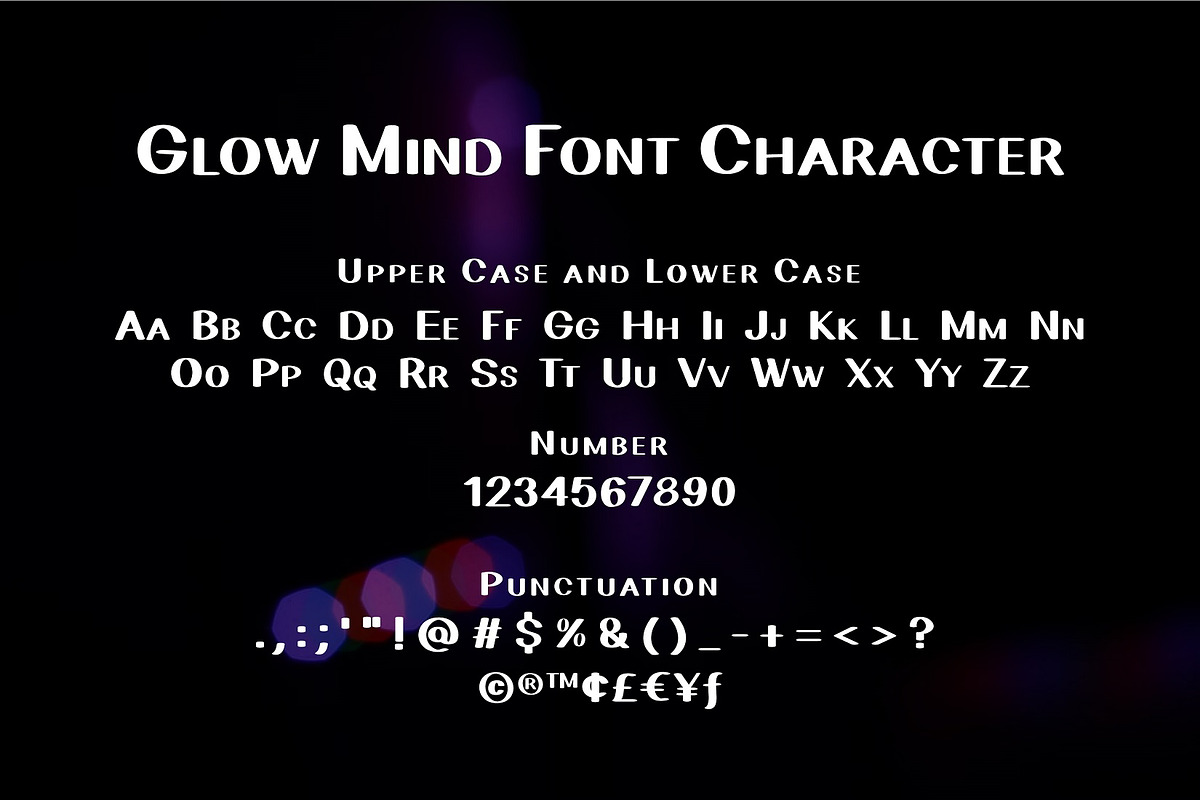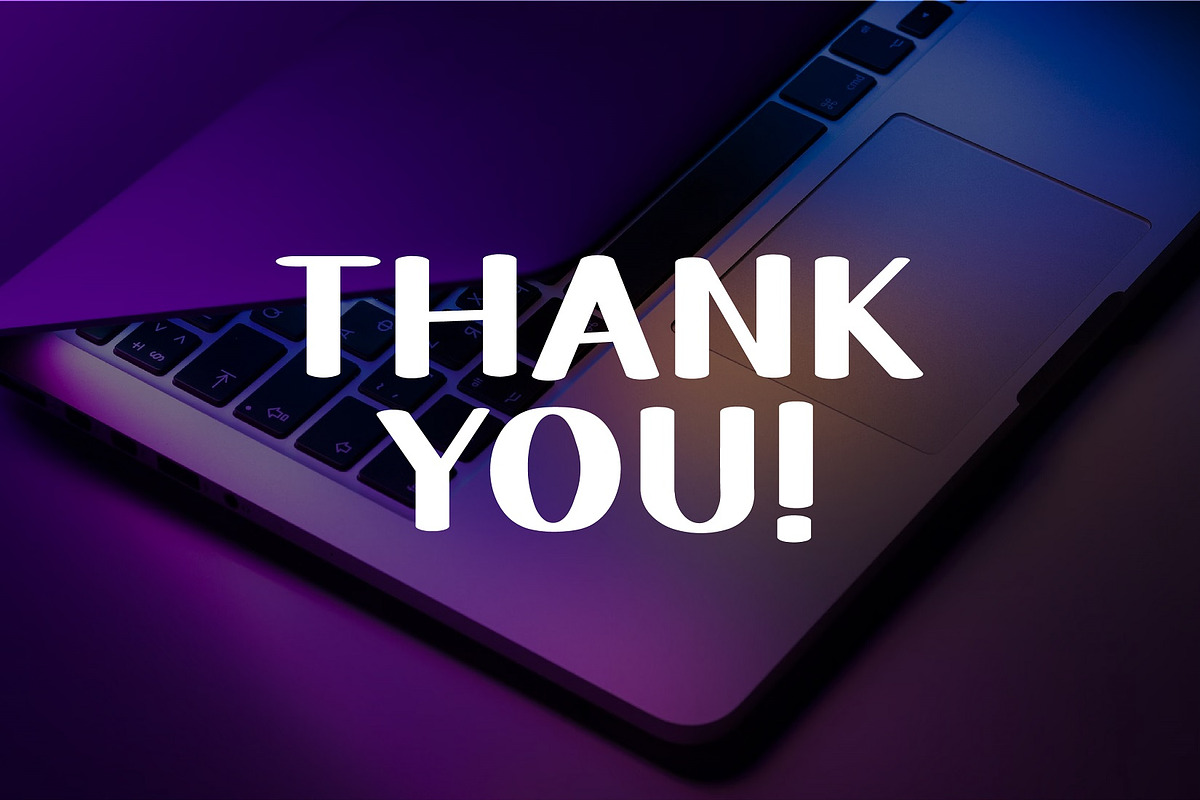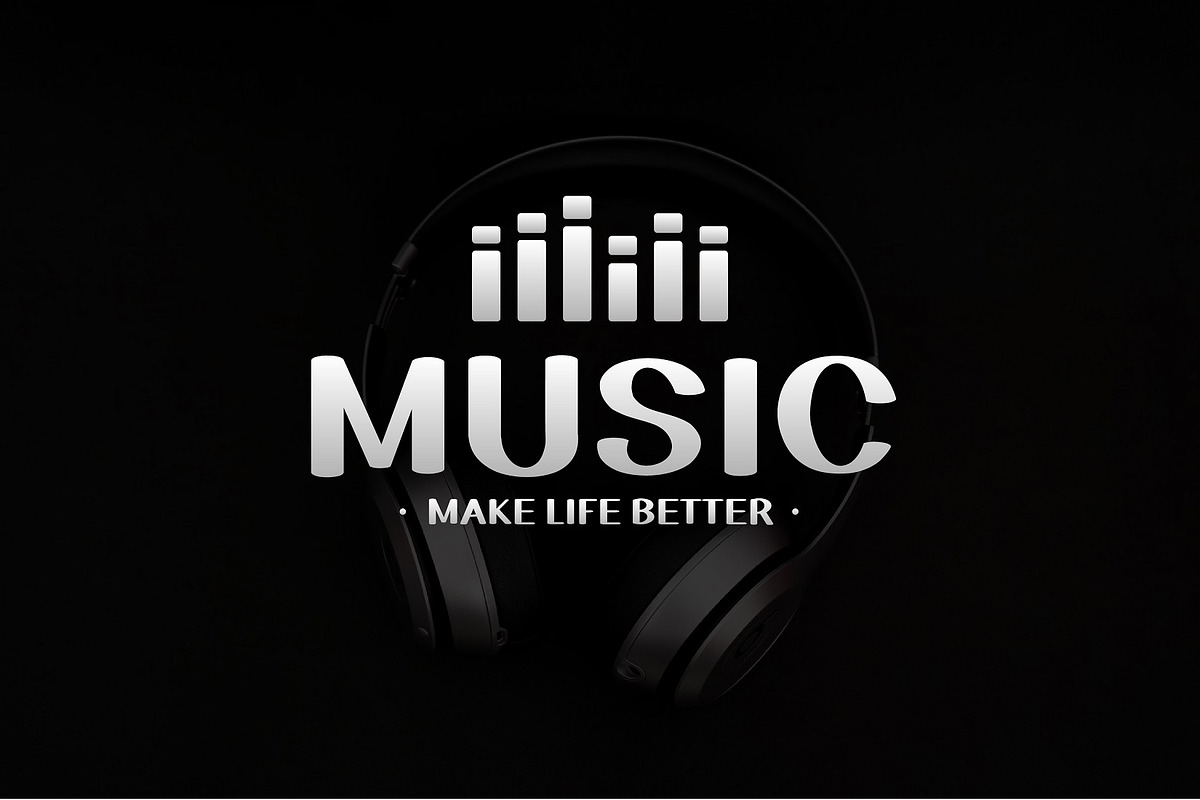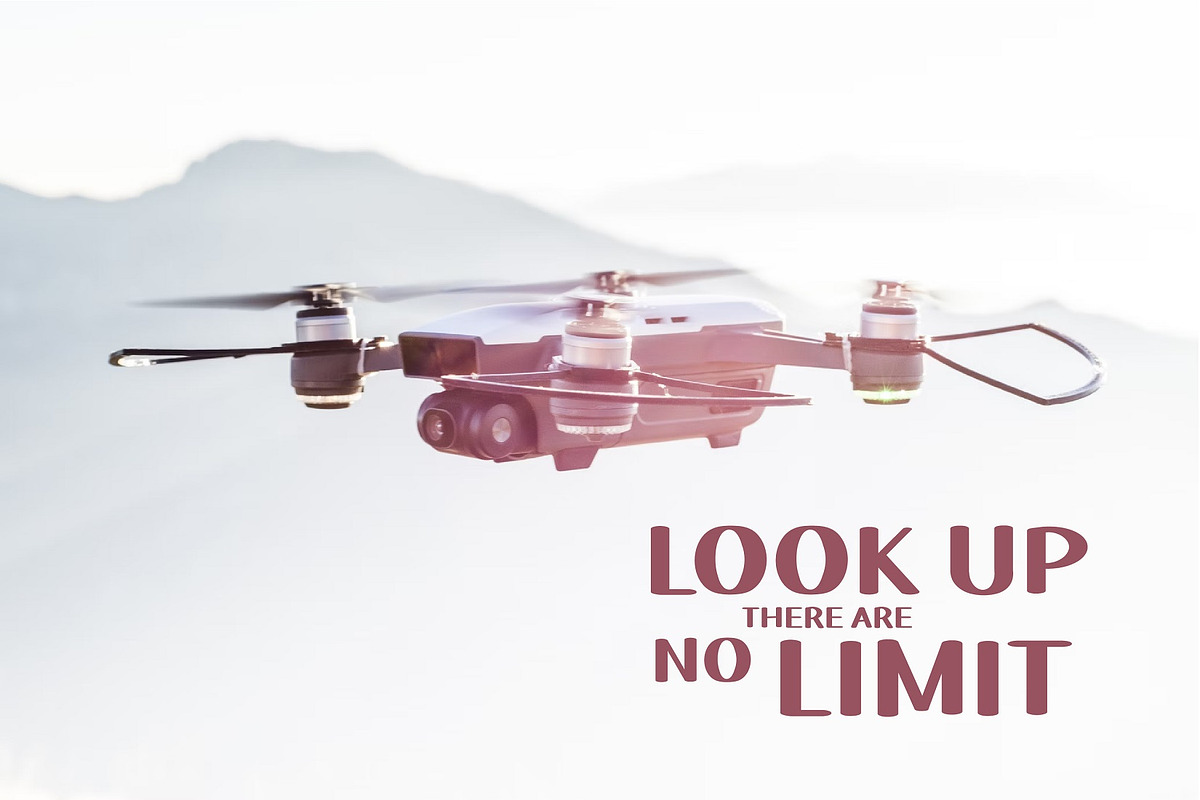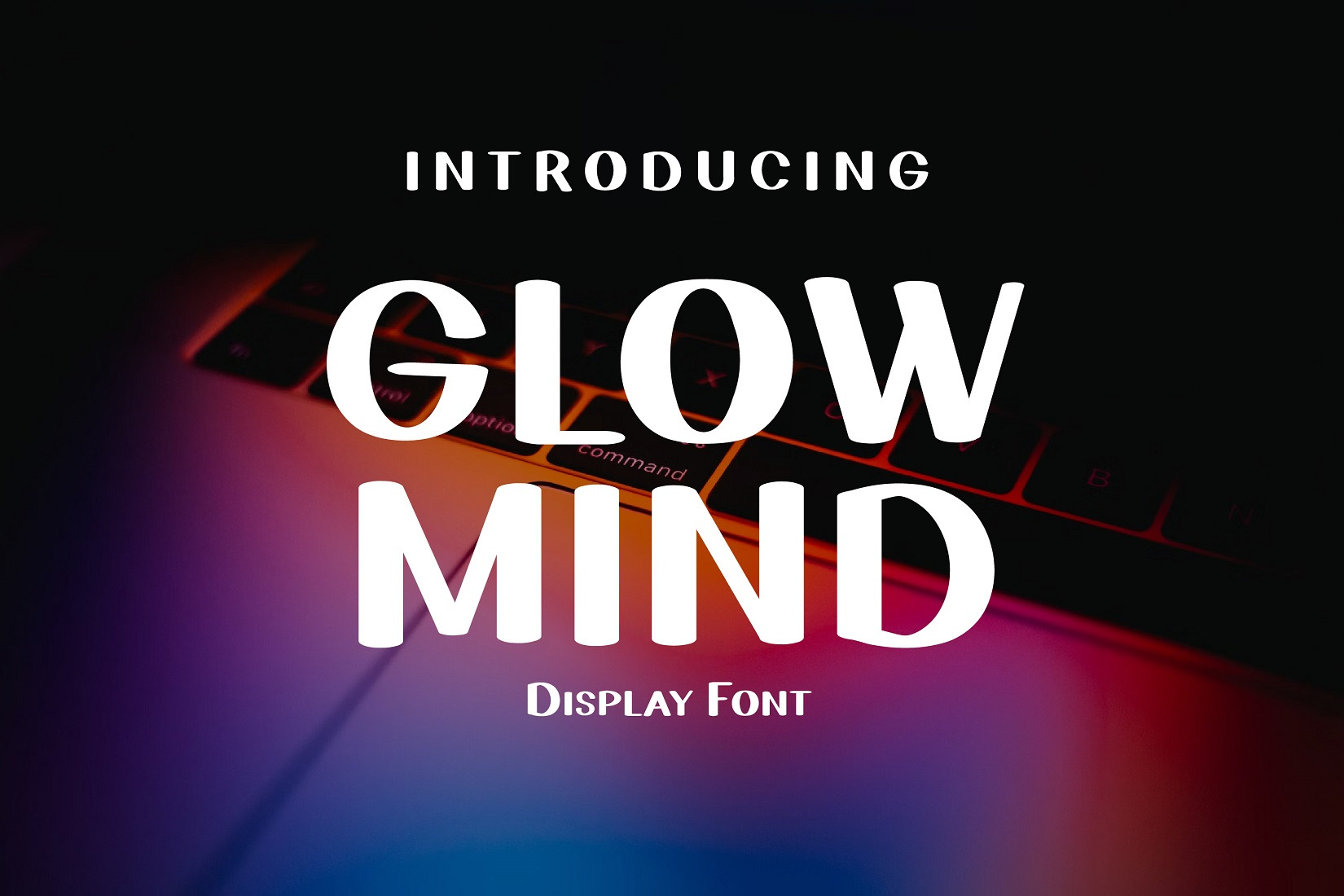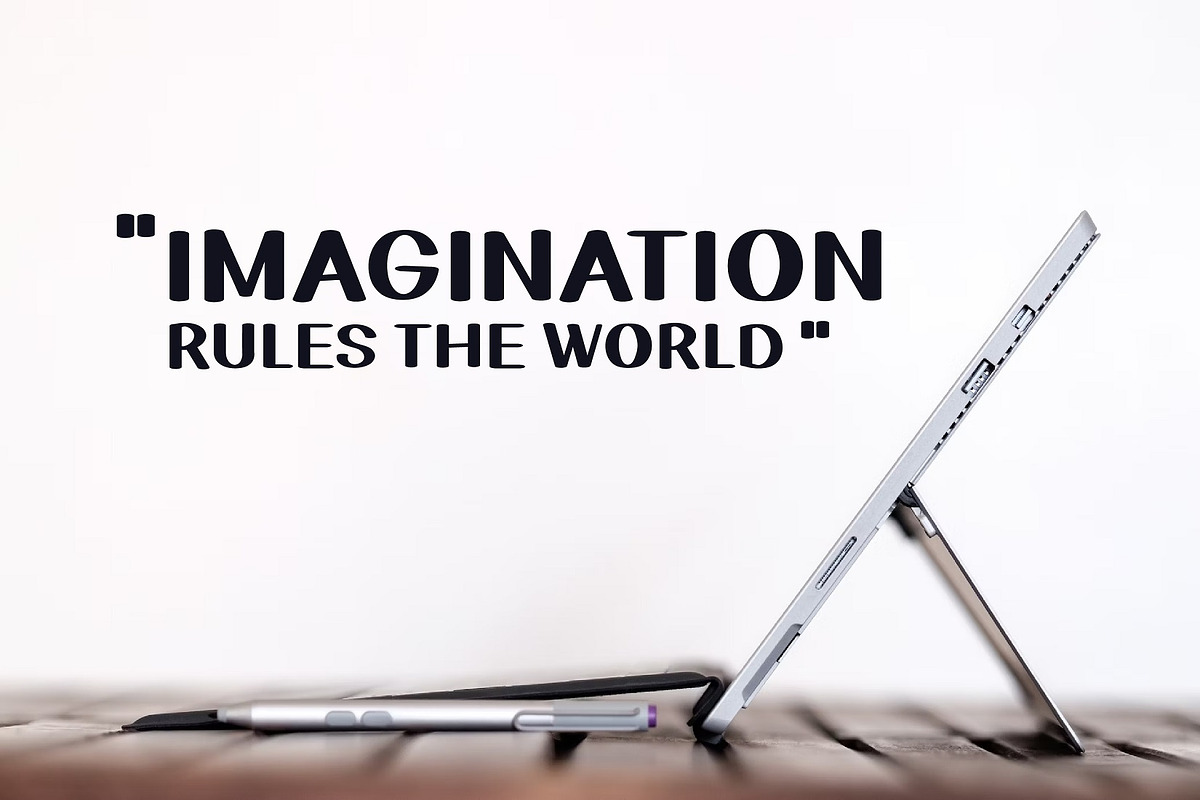
Glow Mind Modern Sans Font
Introducing Glow Mind - Sans Serif Display Font
Glow Mind is a modern sans display font. Perfect for the title, typography, clothes, Poster, magazines, brochures, packaging,Websites and much more for your design needs, making your designs more modern and professional.